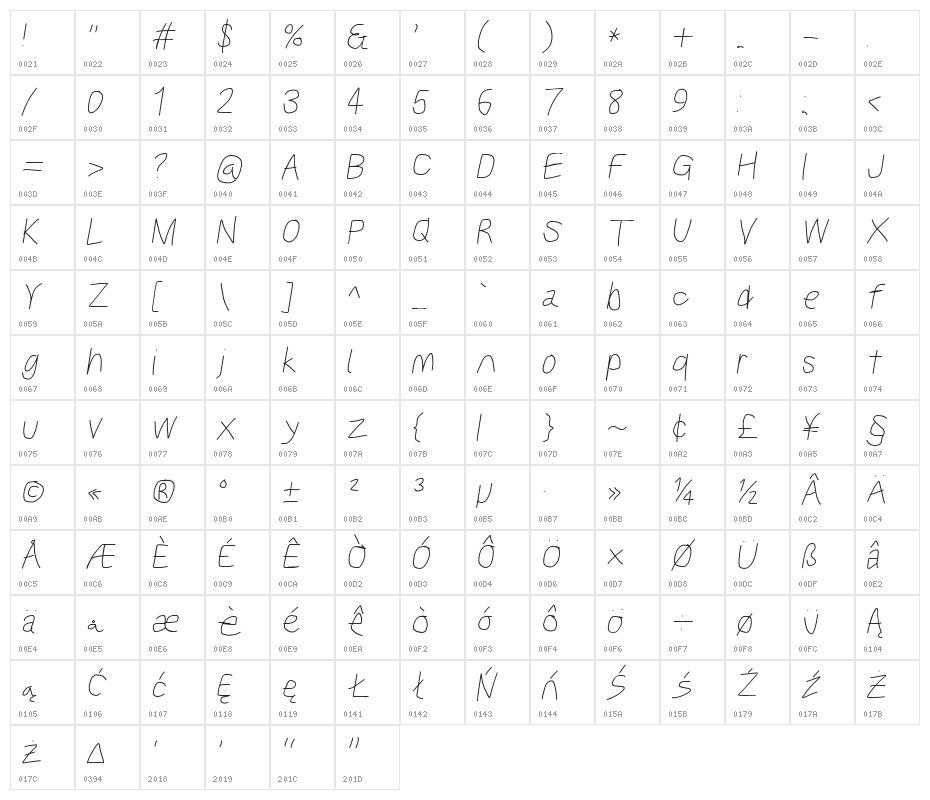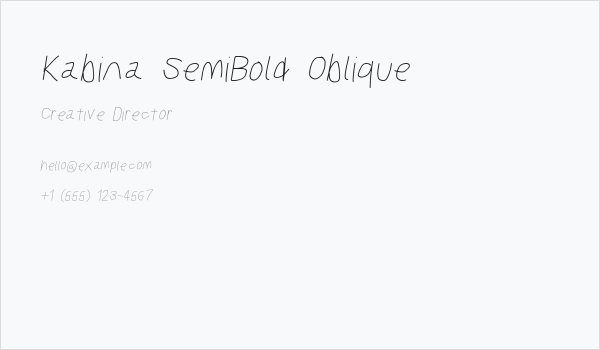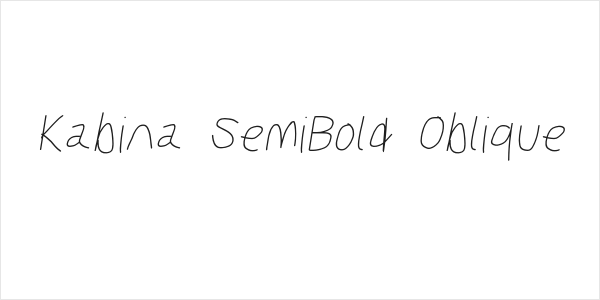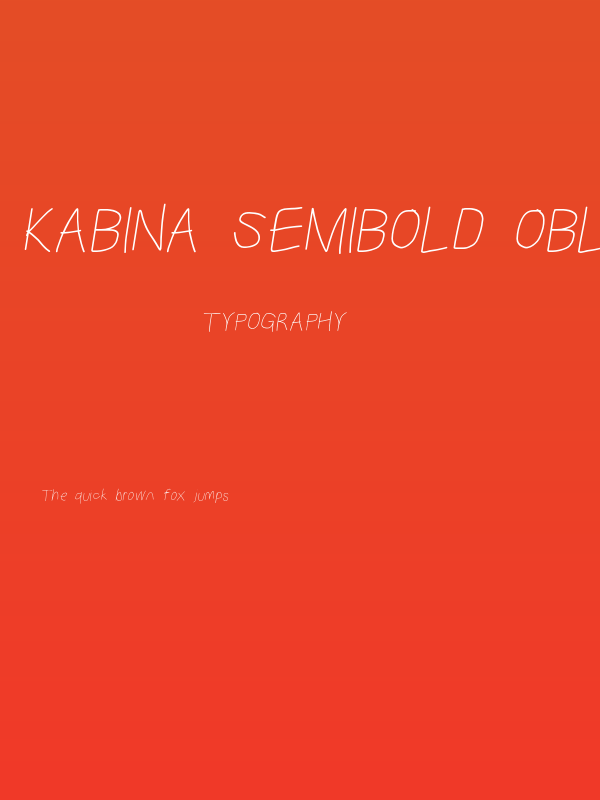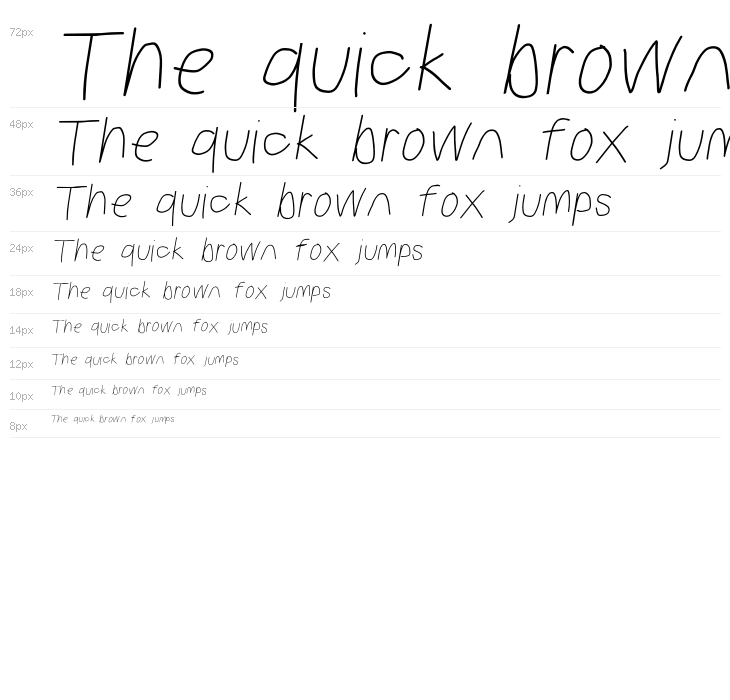
Kabina SemiBold Oblique Font
Kabina SemiBold Oblique Description
This font features a playful and modern handwritten style, characterized by its semi-bold weight and oblique slant. The letters are slightly tilted, giving a dynamic and informal appearance. The strokes are consistent, with a medium contrast that adds to the legibility while maintaining a casual feel. The characters are well-spaced, providing a balanced and airy look. This font is versatile, suitable for both digital and print media, and can add a personal touch to any project.
| Use Case | Logos, Headlines, Informal Text |
| Proposed Projects | Ideal for greeting cards, personal branding, social media graphics, and informal invitations. |